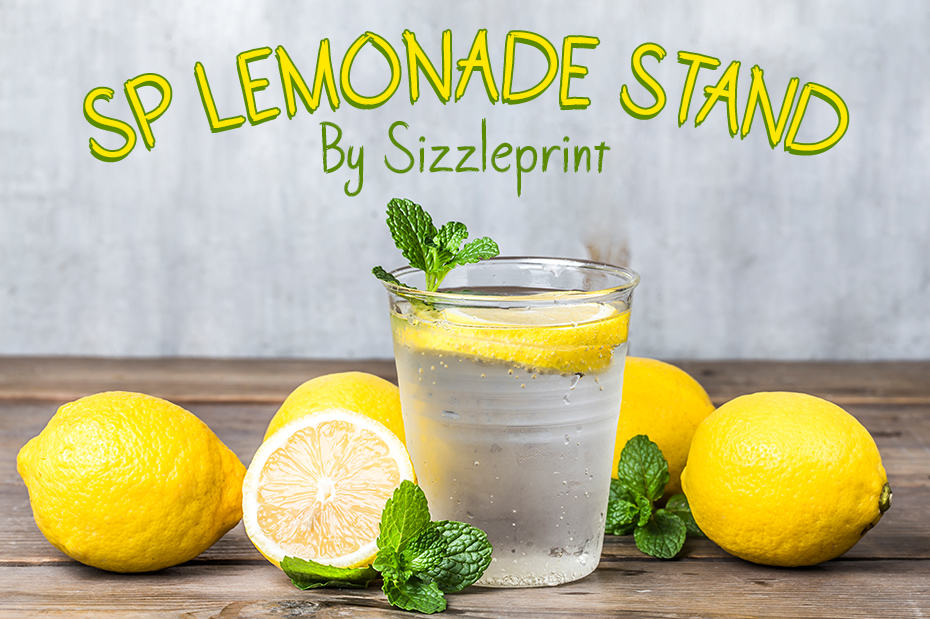
SP Lemonade Stand Font
About SP Lemonade Stand Font
SP Lemonade Stand is a handwritten dry brush font based on lettering you see on lemonade stands and the like. This is a full font with accents, smart quotes, punctuations, and more. It has small details that look great when used as a display font set in large text but is legible at small point sizes as well.